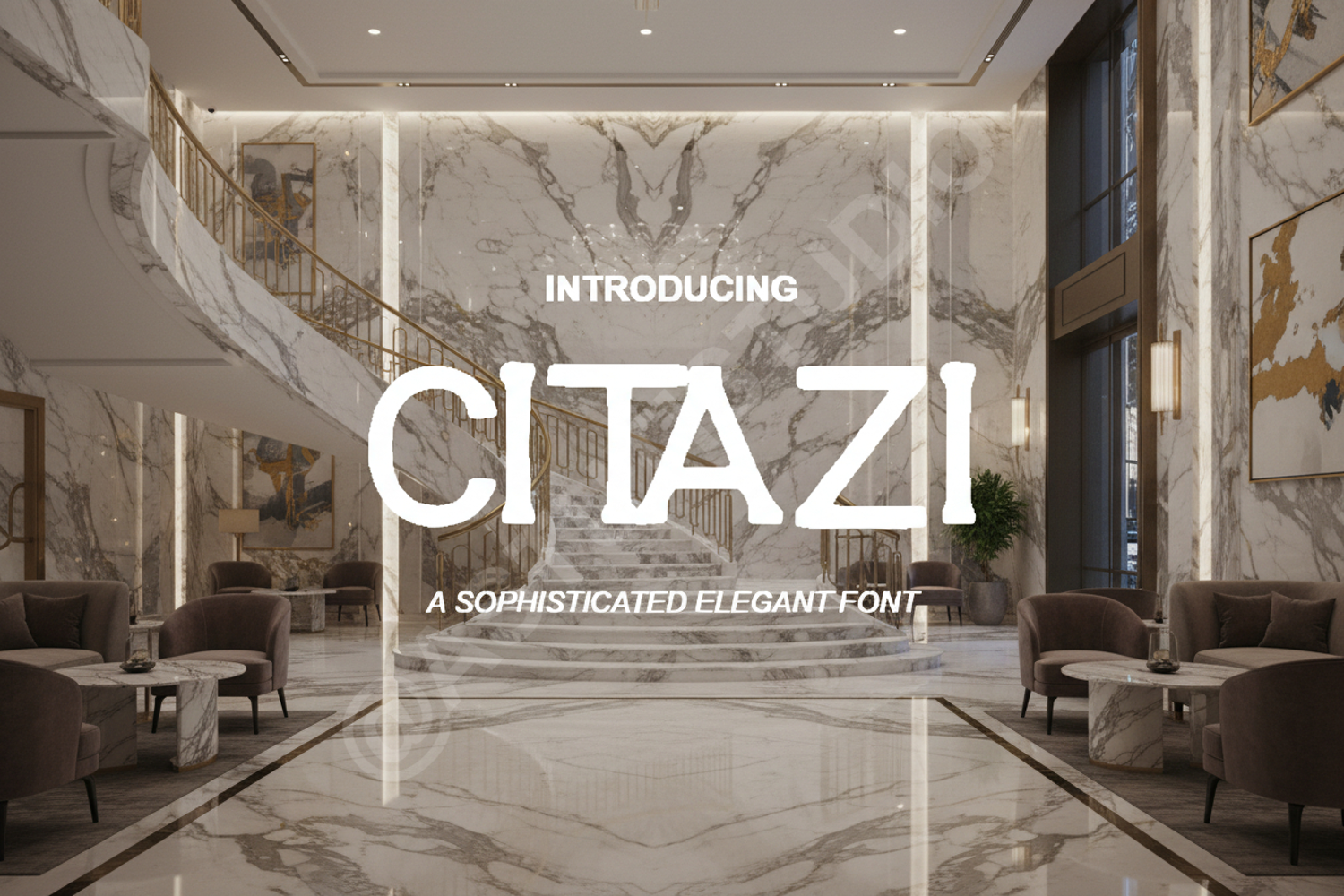
Citazi - Elegant Modern Serif Typeface
Citazi
Elevate your creative projects with Citazi, a premium modern serif font that blends timeless elegance with contemporary flair. Designed with precision, Citazi features sophisticated strokes and balanced proportions, making it a must-have for designers seeking a high-end aesthetic. Whether you are working on a luxury brand identity or a minimalist editorial layout, this font provides the professional touch your work deserves.
- Elegant Ligatures for a custom look
- Luxury Branding and Identity: Create a memorable and upscale brand presence.
- Wedding Stationery: Perfect for invitations, menus, and place cards.
- Editorial Design: Ideal for magazine headers, book covers, and blog layouts.
- Logo Design: Craft unique and professional logos with ease.
- Social Media Graphics: Enhance your digital presence with stylish typography.